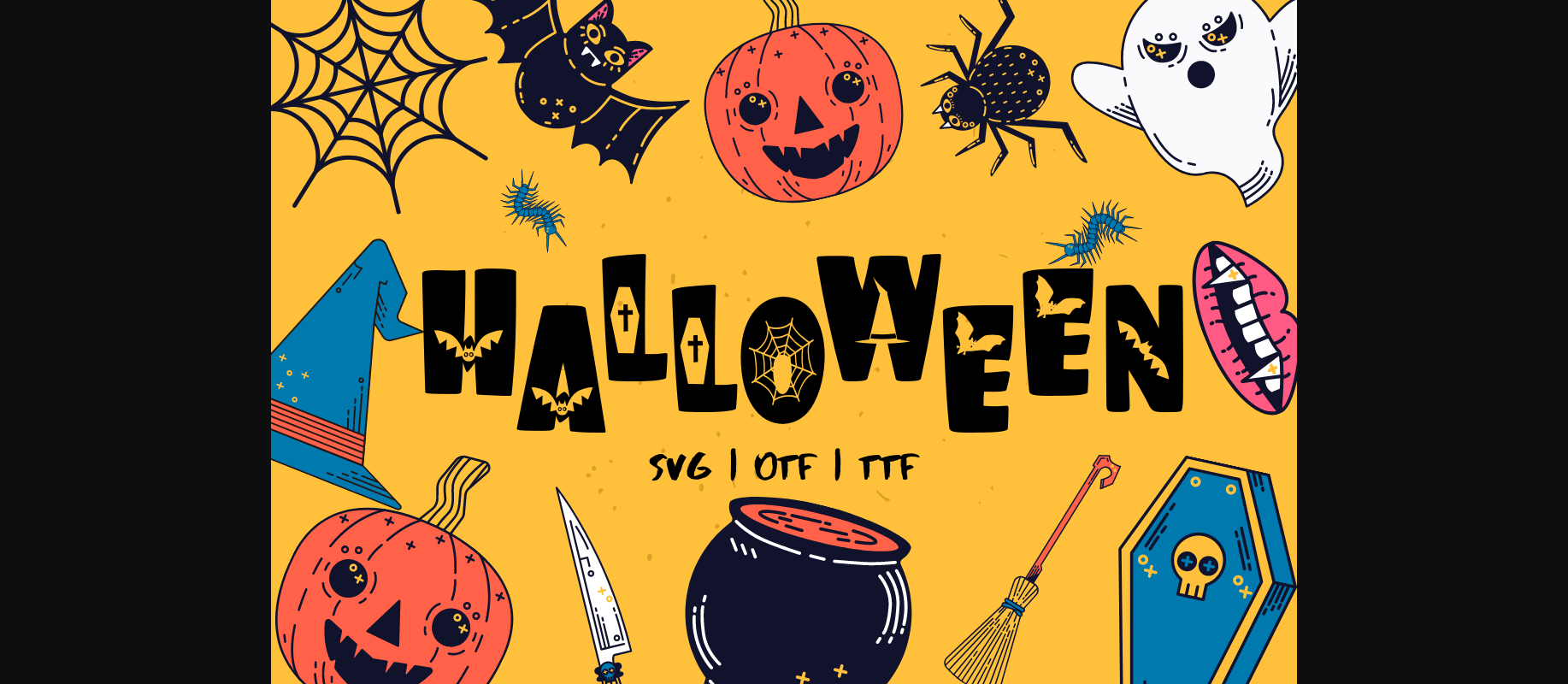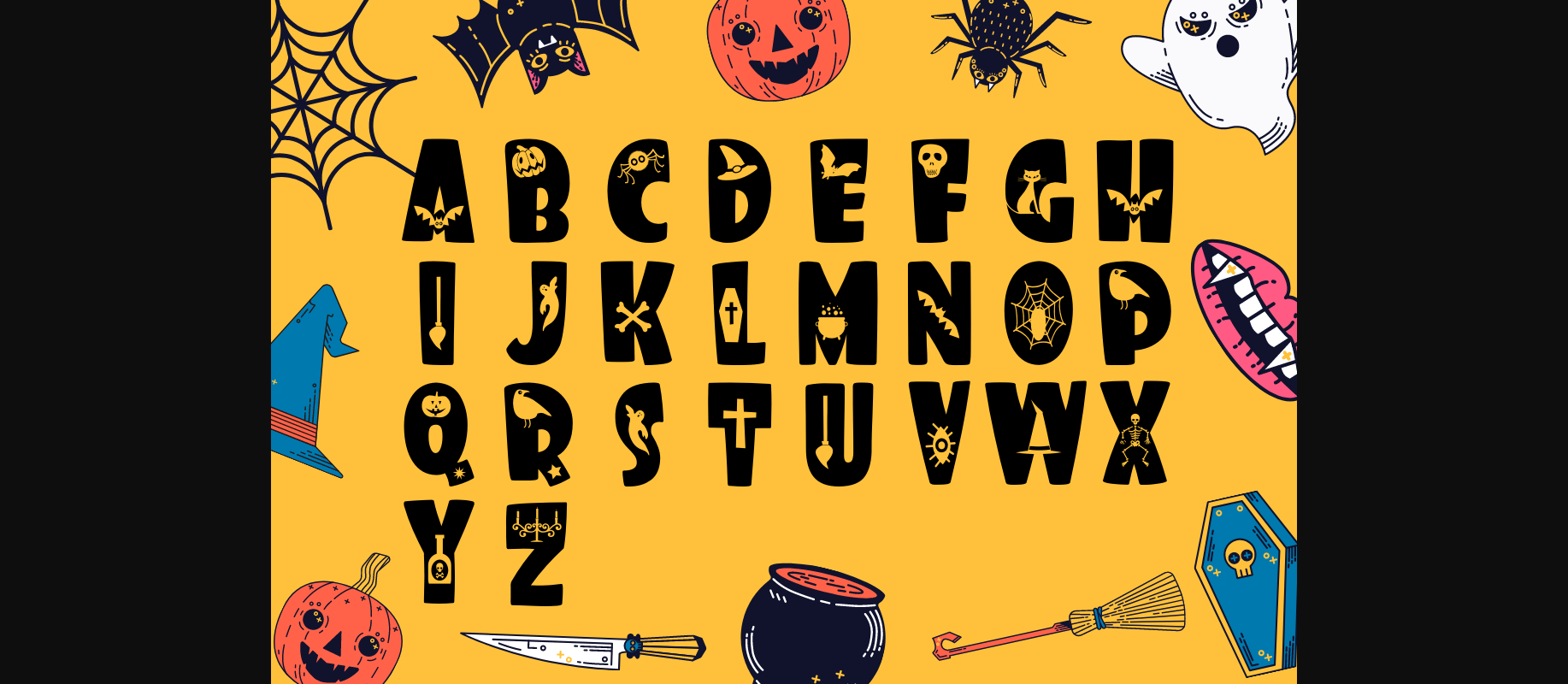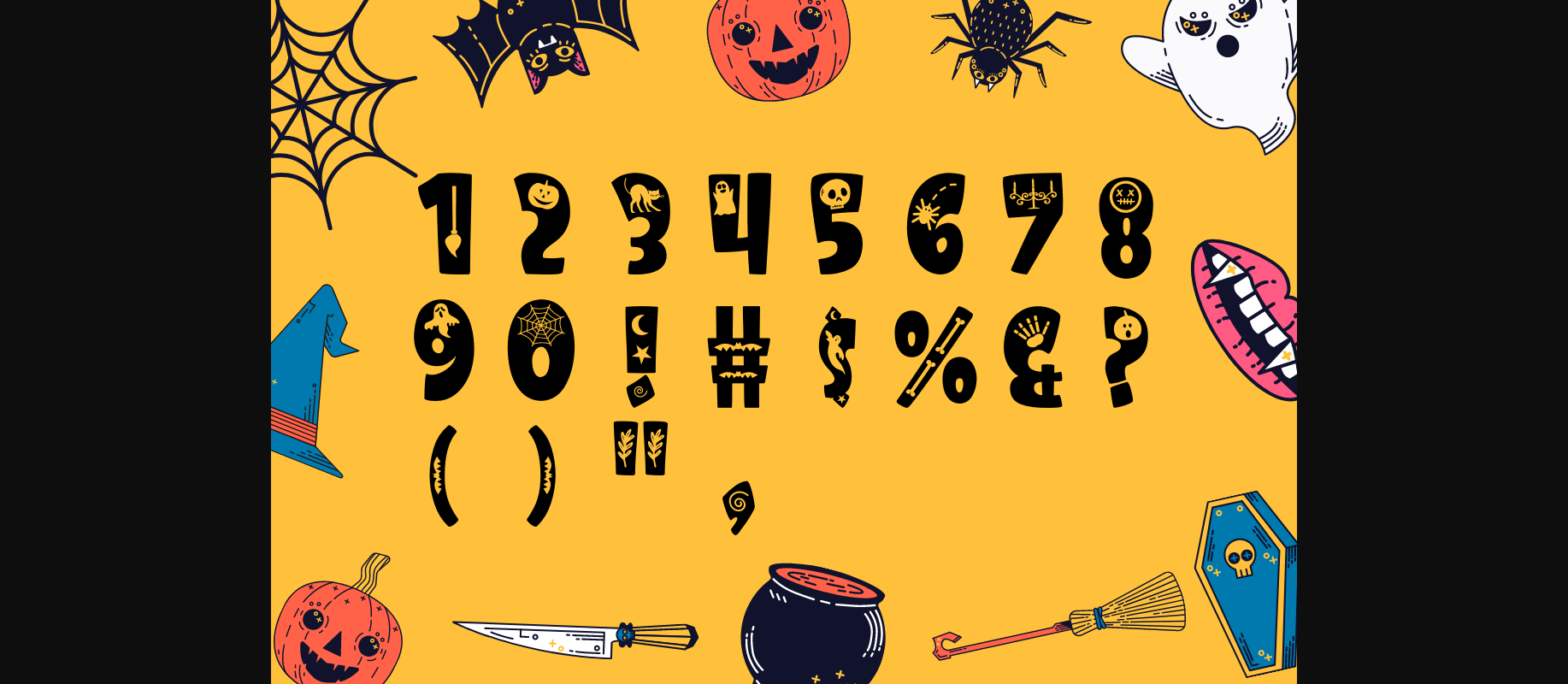
HomeDecorative FontsFunny Halloween Font Decorative Fonts Funny Halloween Font FacebookXPinterestWhatsApp 1 of 5 ... Funny Halloween Font Poster 2... Funny Halloween Font Poster 3... Funny Halloween Font Poster 4... Funny Halloween Font Poster 5... About Funny Halloween Font Funny Halloween is a unique and cool decorative font. With its scary and spooky ornaments this font is perfect for your Halloween or horror-themed projects. DOWNLOAD NOW People also explored Planting and Seeding Font Ronny Catuss Font Jummiten Font Duo Funny Cat Font Amsterdam Font Pomorit Font Wulantika Font Ameela Font Pretty Rose Font 326 0 TagsFunny Halloween Font Previous articlePhantom FontNext articleHolly Wreath Font LEAVE A REPLY Cancel reply Comment: Please enter your comment! Name:* Please enter your name here Email:* You have entered an incorrect email address! Please enter your email address here Website: Save my name, email, and website in this browser for the next time I comment. Personal Use Free Marthissa Personal Use Free Read more about this font Tahu Font Personal Use Free Read more about this font Husky Stash Personal Use Free Read more about this font Metal Lord Personal Use Free Read more about this font BLOG Free Fonts Risk: Why Free Fonts Can Be Dangerous for Designers Free Fonts Risk: Why Free Fonts Can Be Dangerous for Designers Using free fonts is a common practice in web and graphic design. However, the... Using Fonts in Digital Marketing: Tips to Strengthen Your Brand Identity The 10 Best Handwriting Fonts to Add Personality to Your Designs Top 10 Handwritten Fonts That Elevate Your Designs